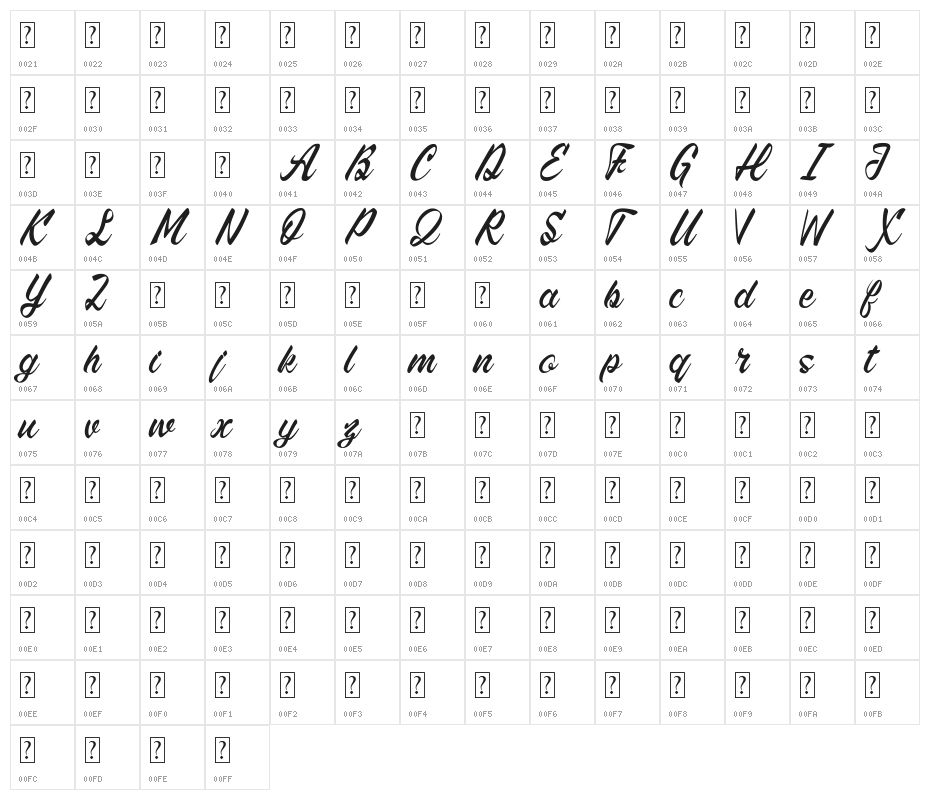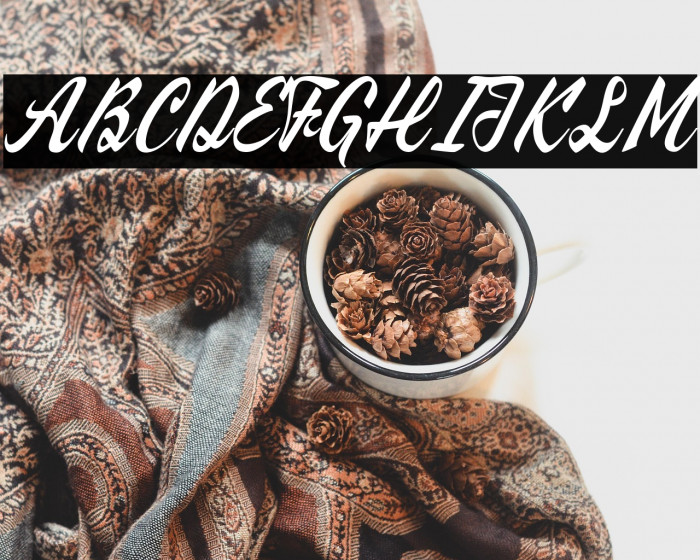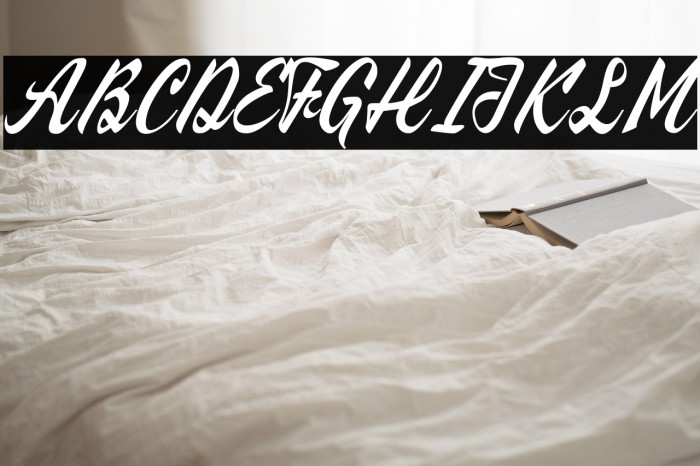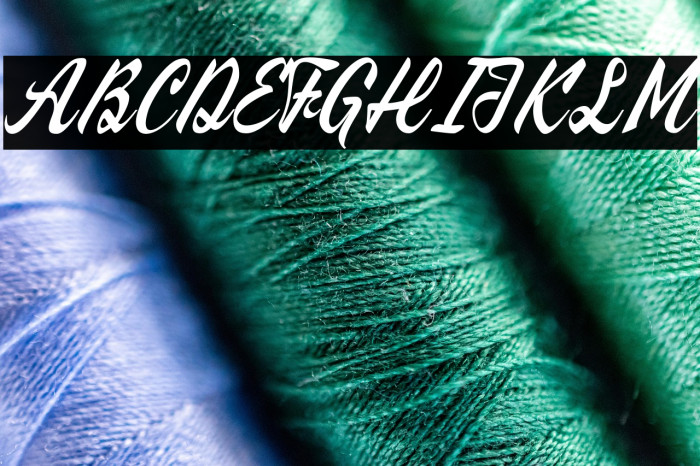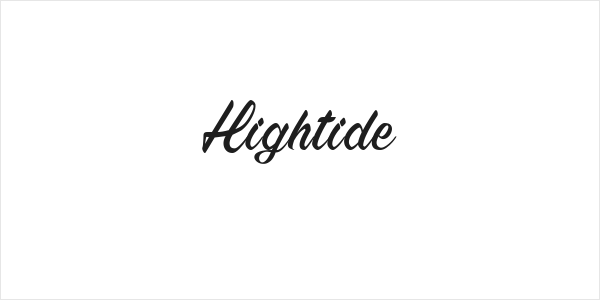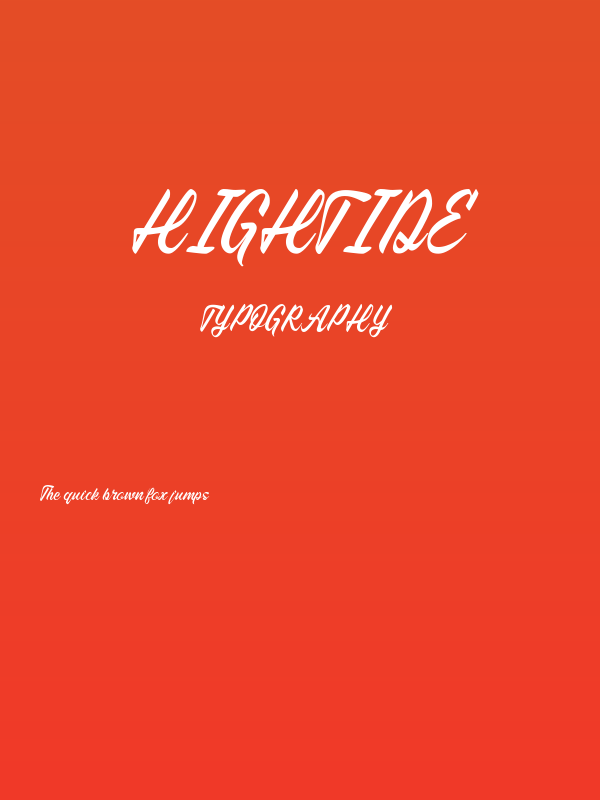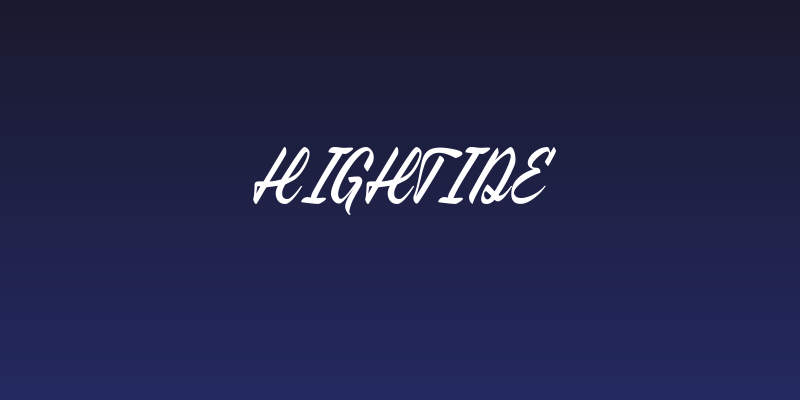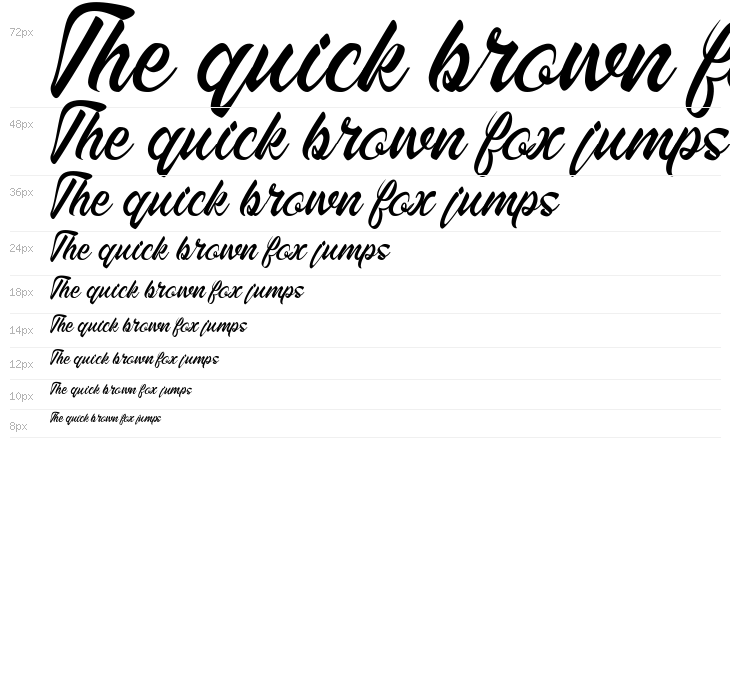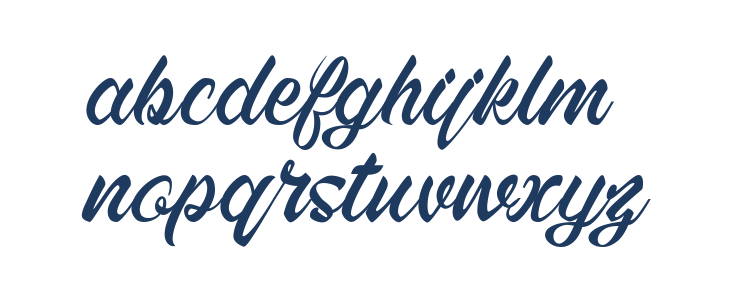
Hightide Font
Hightide Description
This font exhibits a dynamic and flowing script style, characterized by its elegant, cursive letterforms. The uppercase letters are bold and sweeping, with a distinct slant that adds a sense of motion and grace. The lowercase letters maintain a consistent style, with smooth connections between characters, enhancing the fluidity of the text. The font's overall appearance is sophisticated and stylish, making it suitable for projects that require a touch of elegance and flair. The special characters are designed to match the script's aesthetic, ensuring a cohesive look across all text elements.
Overall StyleElegant
Use CaseLogos, Invitations, Headlines
Proposed ProjectsIdeal for wedding invitations, luxury branding, elegant signage, and personal stationery.